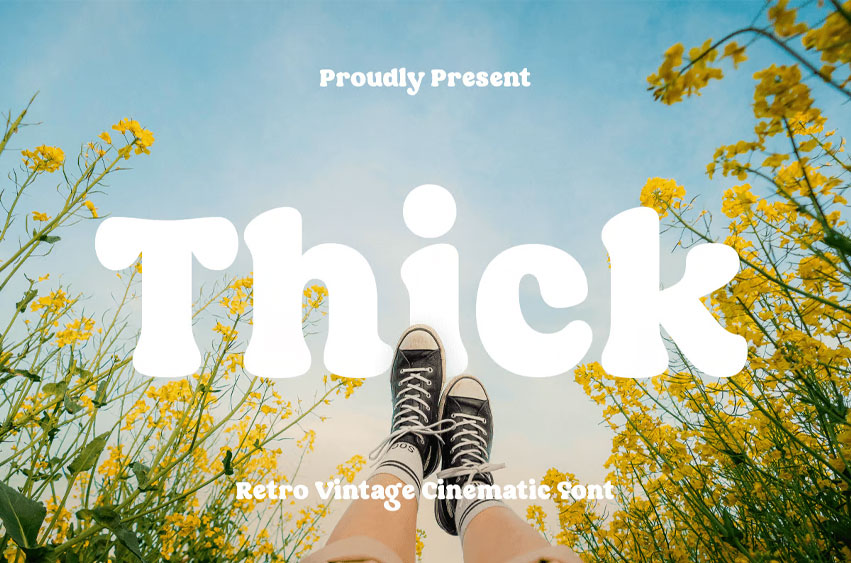
Thick Font is a bold retro vintage font crafted for impactful headlines and nostalgic visuals. Its chunky letterforms, vintage charm, and cinematic flair make it ideal for movie posters, product labels, event branding, and editorial designs. Whether you’re channeling the golden era of film or bringing retro energy to a modern layout, Thick delivers an unmistakable presence.
Inspired by classic cinema and bold display typography from the mid-20th century, Thick brings timeless strength and character to your work. Its retro curves and heavy stance are made to turn heads and leave a lasting impression in both print and digital formats.
Let your designs speak loud and proud with Thick—a font that combines nostalgia, boldness, and storytelling in every letter.
Thick Retro Vintage Cinematic Font Features:
• Bold Retro Display Style
• Perfect for Posters, Headlines, Labels & Branding
• Punctuation, Numbers, and Symbols
• Uppercase and Lowercase
• Opentype Features